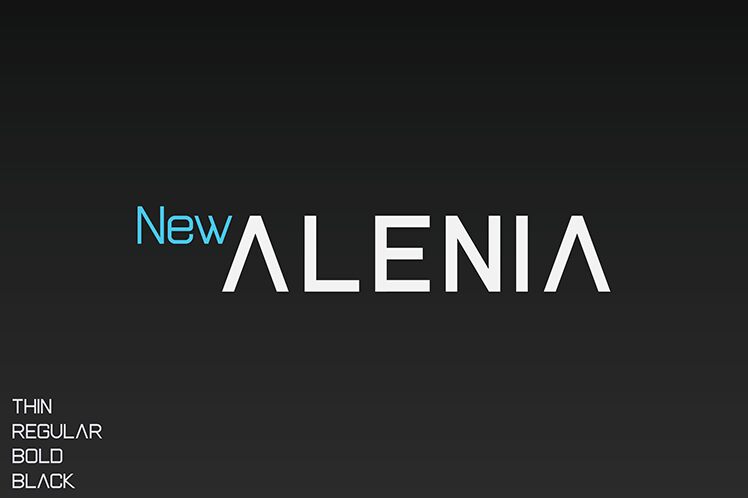
New Alenia Black is a versatile sans serif font that blends modern aesthetics with timeless simplicity. Its bold and wide design makes it perfect for headlines, logos, posters, and packaging. The font's solid and clean lines give it a professional appearance that can be used in various projects from corporate presentations to creative designs. Its semi-bold typeface is ideal for emphasizing important information and making a statement. Whether you're creating a website or designing an ad campaign, New Alenia Black will help you stand out from the crowd with its unique style and elegant design.
New Alenia